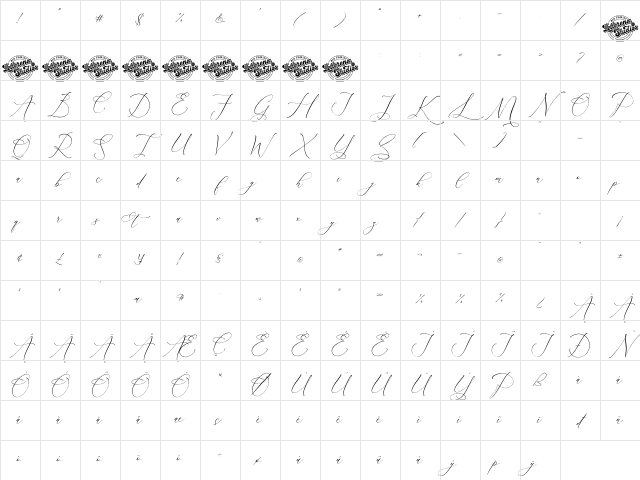
Complete Creattons Balleryna DEMO Regular glyph index. Displaying only characters natively supported by Creattons Balleryna DEMO Regular font.
Creattons Balleryna DEMO is a composed and adaptable typeface that performs quietly and consistently across a wide range of design contexts.